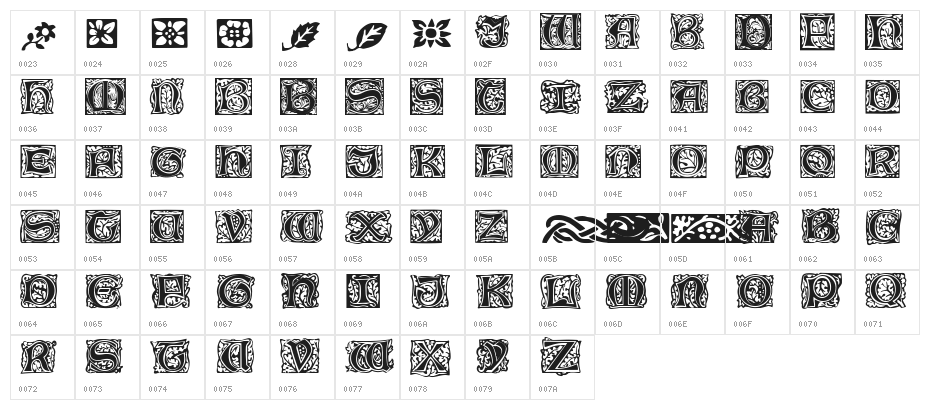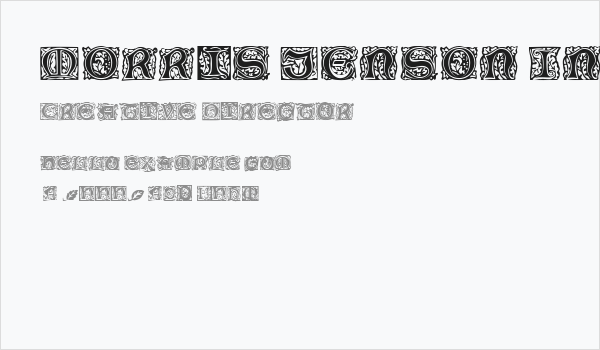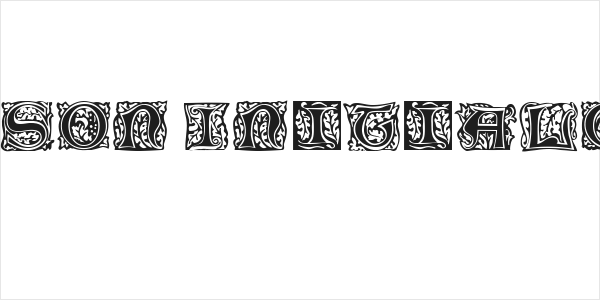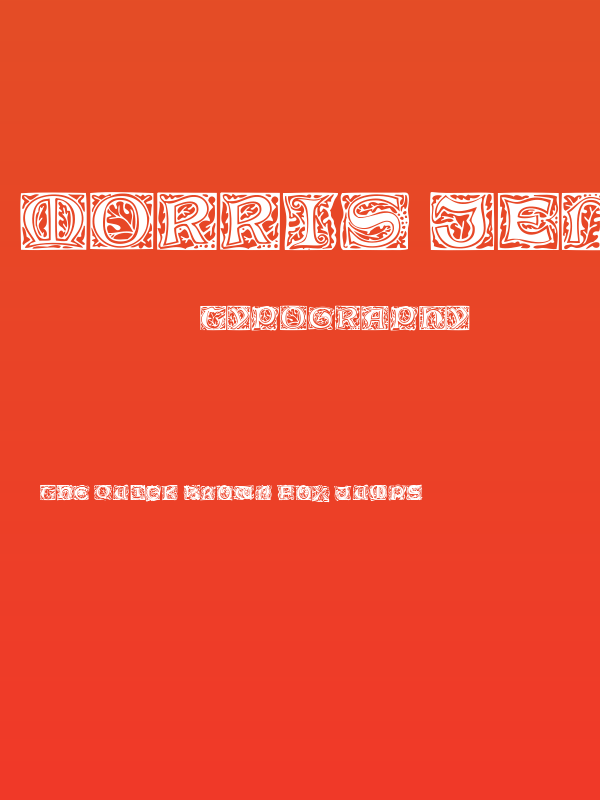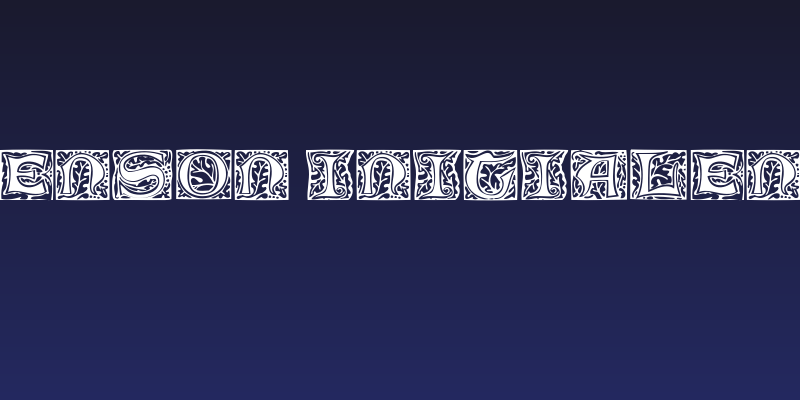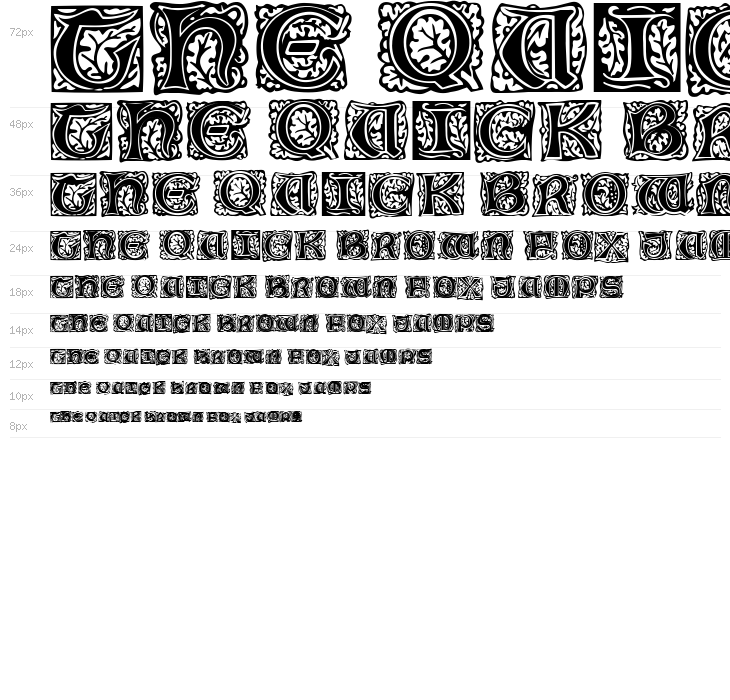
Morris Jenson Initialen Regular Font
Morris Jenson Initialen Regular Description
This font features an ornate and decorative style, with each character enclosed in a square frame filled with intricate floral and vine patterns. The design is reminiscent of illuminated manuscripts, offering a highly detailed and artistic appearance. The uppercase and lowercase letters are equally elaborate, making it suitable for projects that require a touch of elegance and historical charm. The characters are bold and visually striking, with a consistent decorative theme throughout.
| Proposed Projects | Ideal for wedding invitations, historical themed projects, book covers, and decorative posters. |